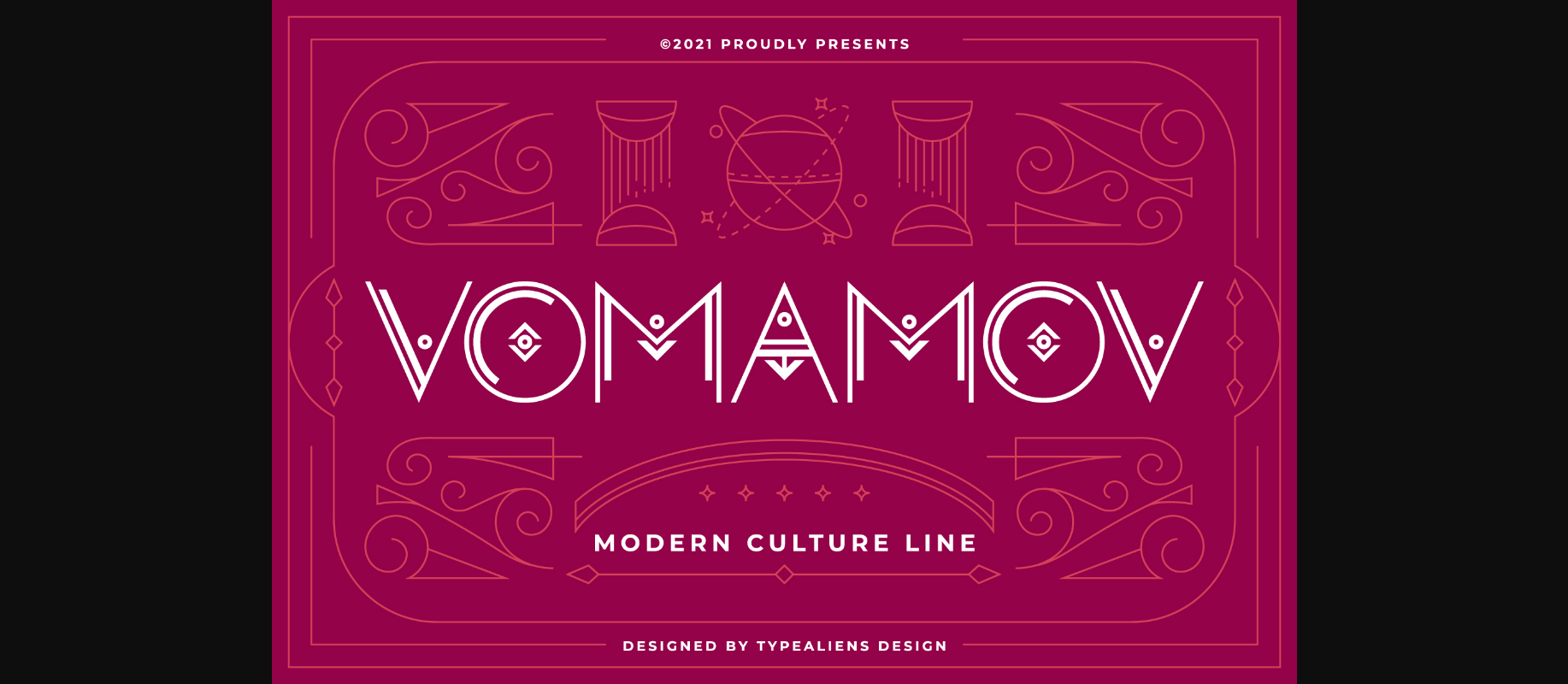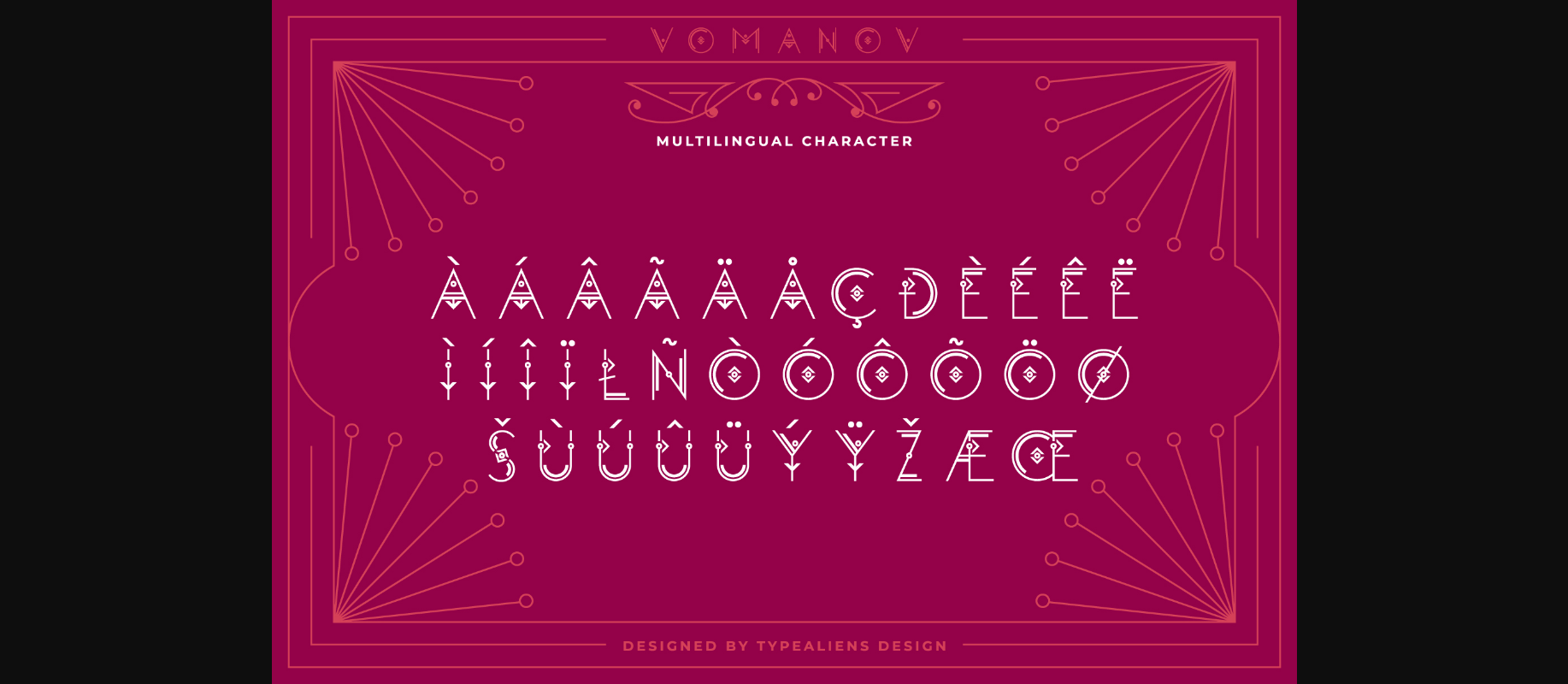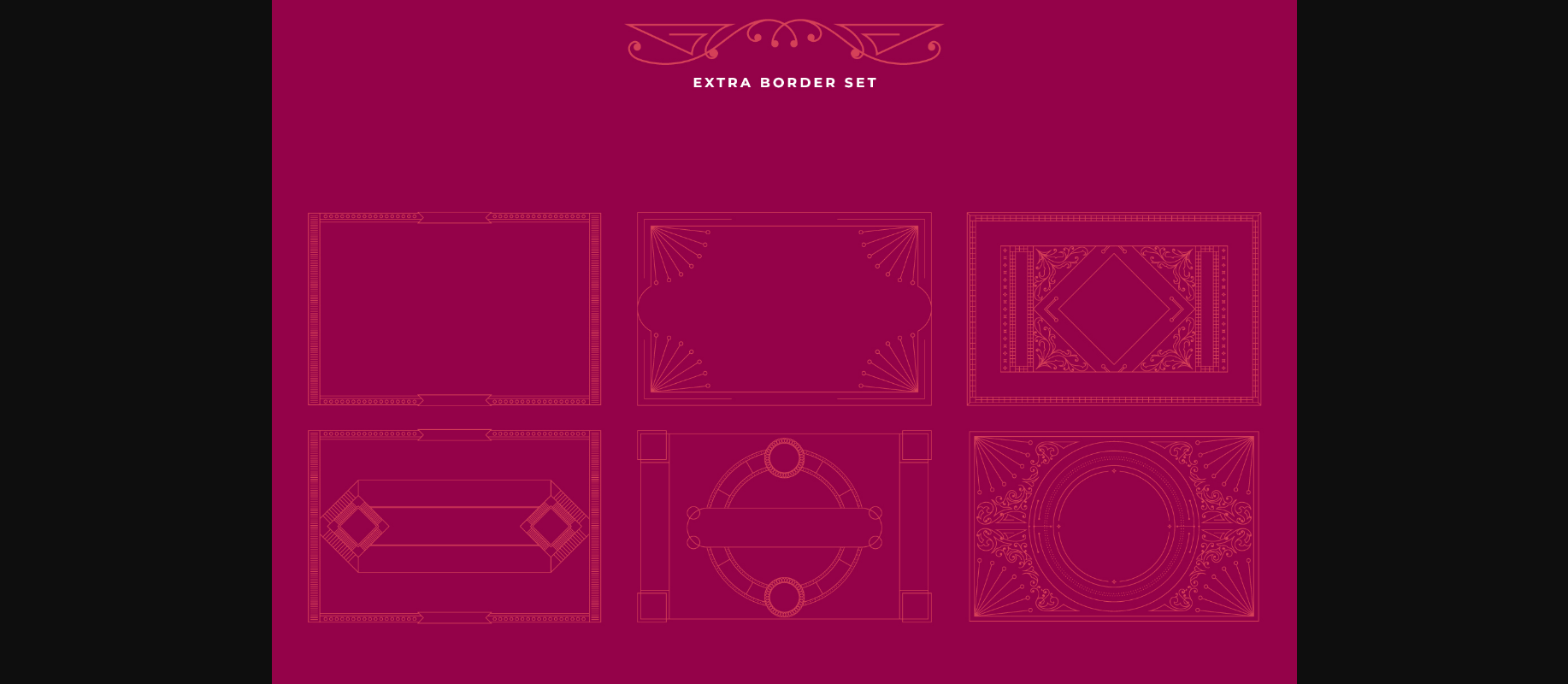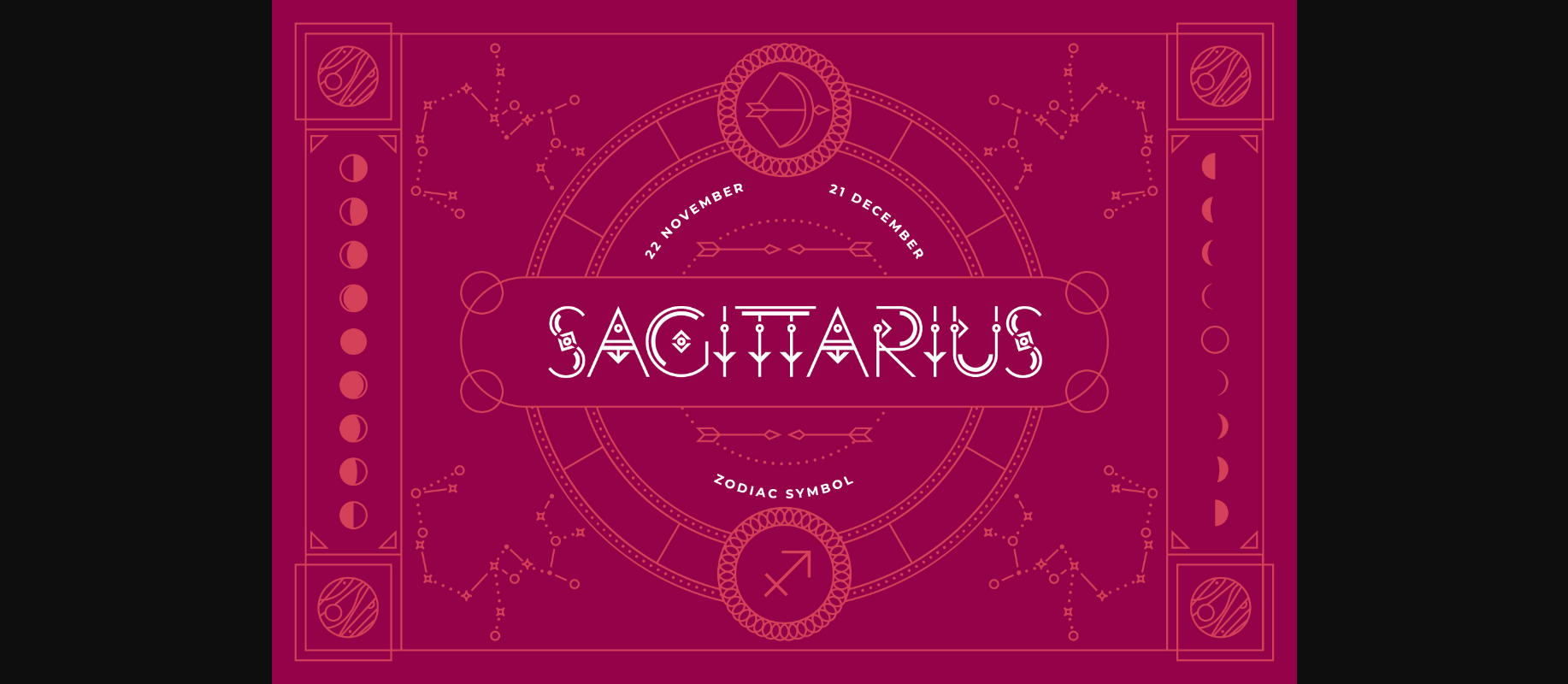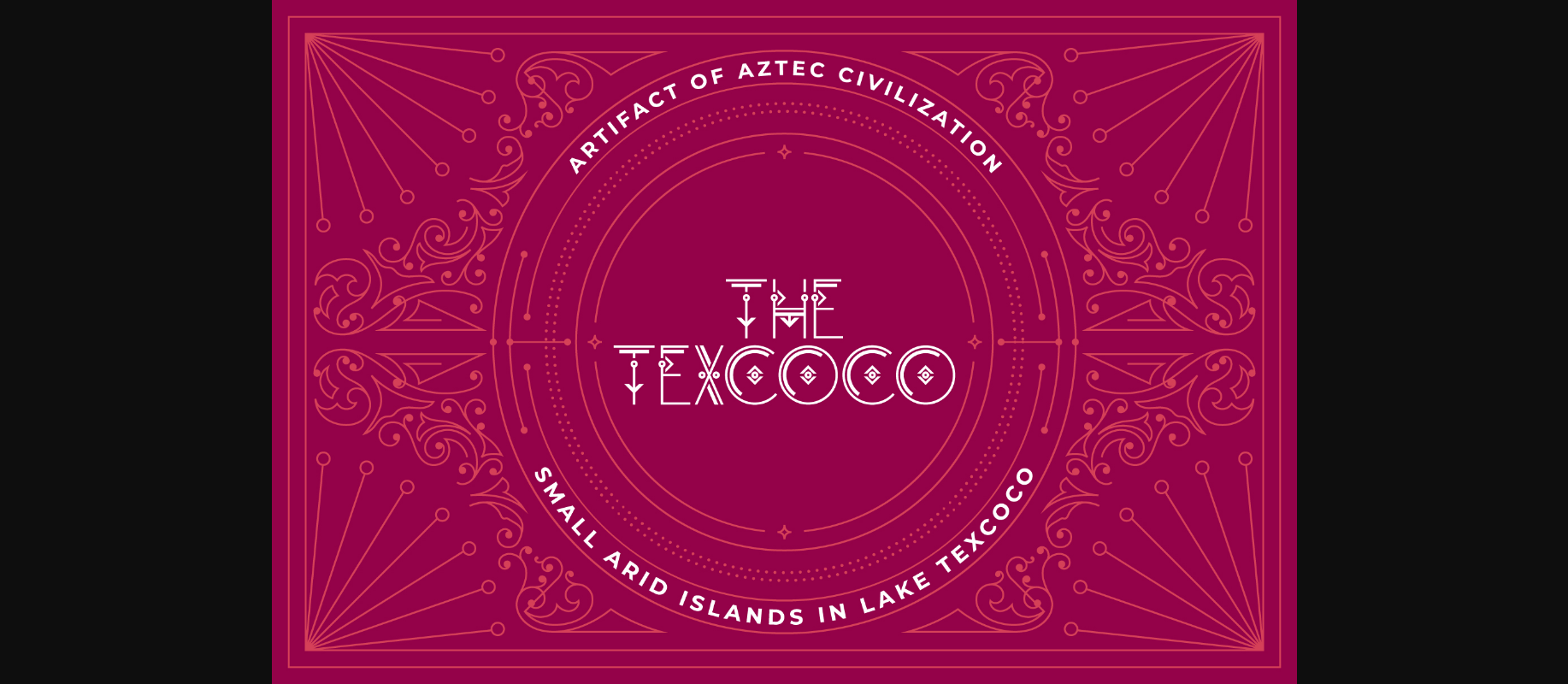
About Vomamov Font
Vomamov is a unique decorative font with letters in a dreamcatcher style. It’s a wonderful typeface for projects that want to express creativity and an explosion of liveliness.